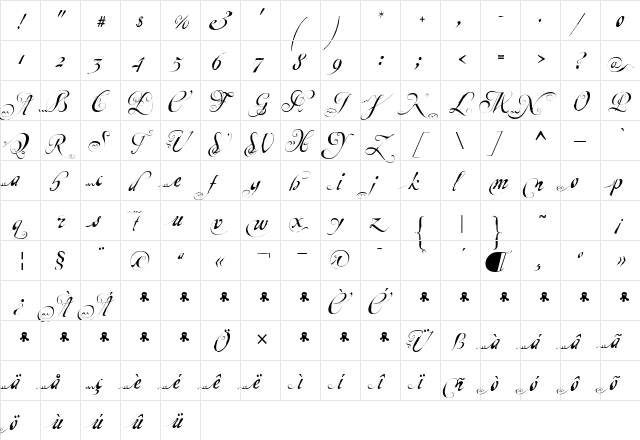
Escrita Inicial Font Preview
Escrita Inicial
Escrita Inicial Font Details
Design Context for Escrita Typeface
Escrita is a composed and adaptable typeface that performs quietly and consistently across a wide range of design contexts.